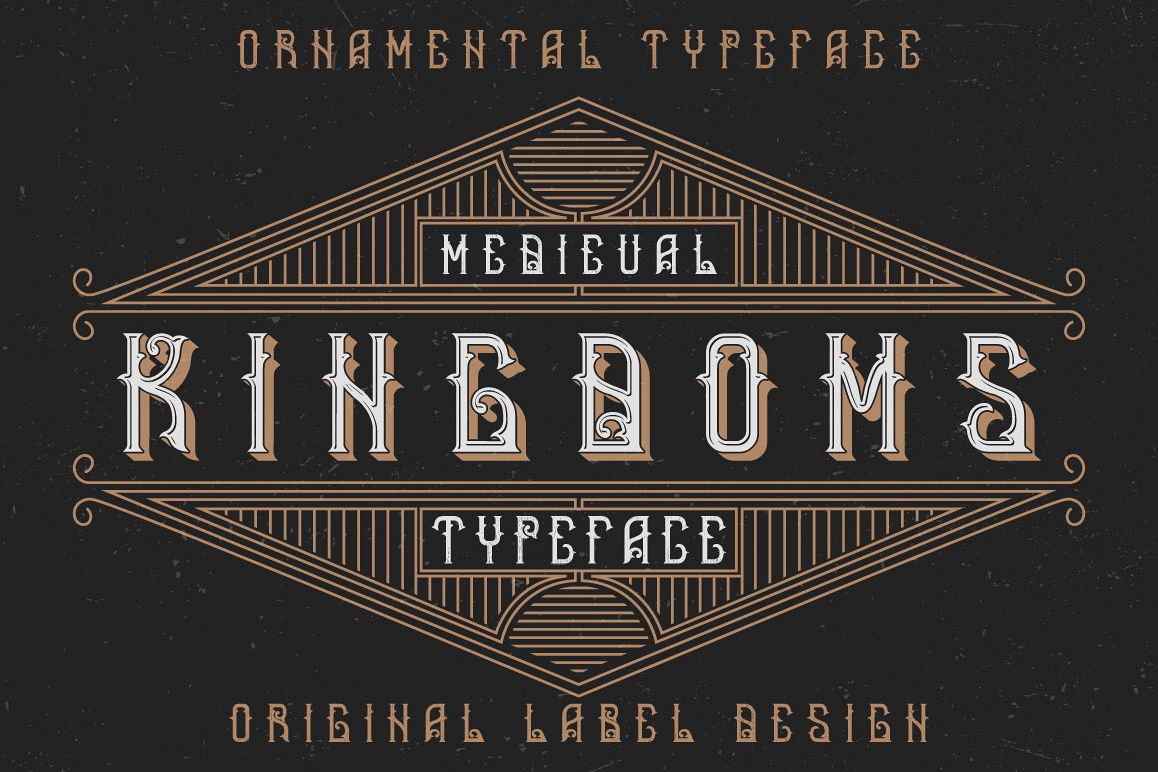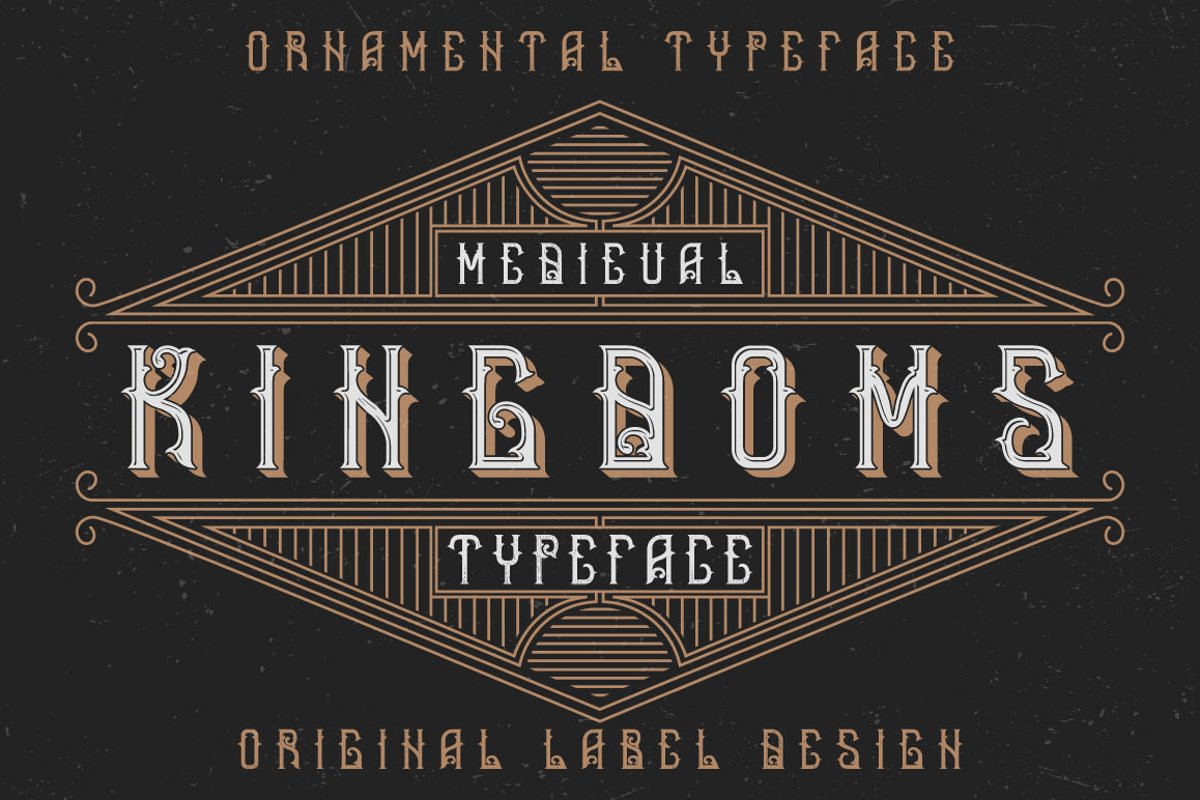
Medieval Kingdoms Label font
MedievalKingdom Aged
MedievalKingdom LightShadow
MedievalKingdoms LightShadowFX
MedievalKingdoms LightFX
MedievalKingdoms ShadowFX
MedievalKingdom Base
Introducing a vintage label typeface named "Medieval Kingdoms". It's made in strong and vintage label style. Typeface looks great on any label designs and t-shirts.
• 5 fonts in complect with special effects + aged version
• You can mix color of base font, texture and shadow effect (look at 5th screenshot)